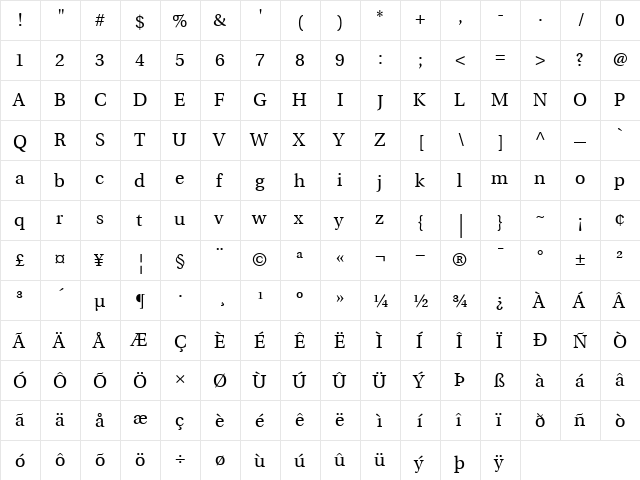
UtopiaHeadline Roman
Design Context for UtopiaHeadline Typeface
UtopiaHeadline is a composed and adaptable typeface that performs quietly and consistently across a wide range of design contexts.